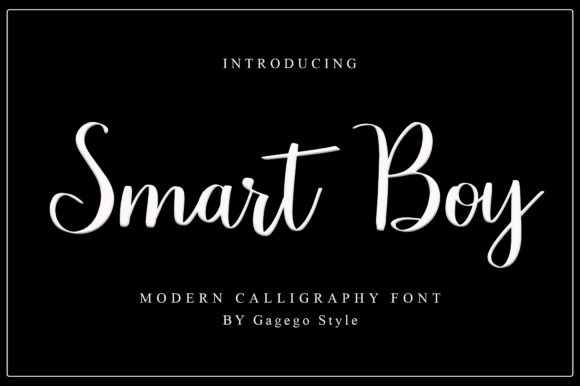
Introducing Smart Boy Font - A Script That Speaks Elegance
Welcome to the world of Smart Boy Font, a script font that radiates elegance and class. This meticulously crafted font by Gagegostyle is designed to bring a refreshing touch of beauty to your designs. Its graceful curves and sweeping lines evoke a sense of sophistication and charm that is sure to leave a lasting impression.
Unleash Your Creativity with Smart Boy Font
Smart Boy Font is your perfect companion for expressing your creativity in a unique and captivating way. Whether you're a designer, crafter, or simply someone who loves adding a personal touch to their projects, this font is ready to elevate your ideas to new heights. Its versatility knows no bounds, making it suitable for a wide range of projects, from wedding invitations and logos to social media posts and branding materials.
Create Designs That Stand Out
With Smart Boy Font by your side, you can create designs that demand attention. Its exquisite script style adds an undeniable charm to any project, instantly transforming it into a masterpiece. The flowing lines and intricate details of each character bring a sense of movement and energy to your designs, making them truly captivating.
The Perfect Choice for Special Occasions
Smart Boy Font is the ideal choice for special occasions that call for a touch of elegance and sophistication. Imagine using this font to design wedding invitations that exude timeless beauty, or creating personalized cards and posters that convey your heartfelt sentiments. The possibilities are endless, and Smart Boy Font is ready to turn your creative visions into reality.
Experience the Beauty of Smart Boy Font
Step into the world of Smart Boy Font and let your creativity flourish. This elegant and versatile font is waiting to transform your designs into works of art. Whether you're a seasoned professional or just starting your creative journey, Smart Boy Font is the perfect companion to bring your ideas to life.
Embrace the elegance, unleash your creativity, and let Smart Boy Font guide you on a journey of visual delight.